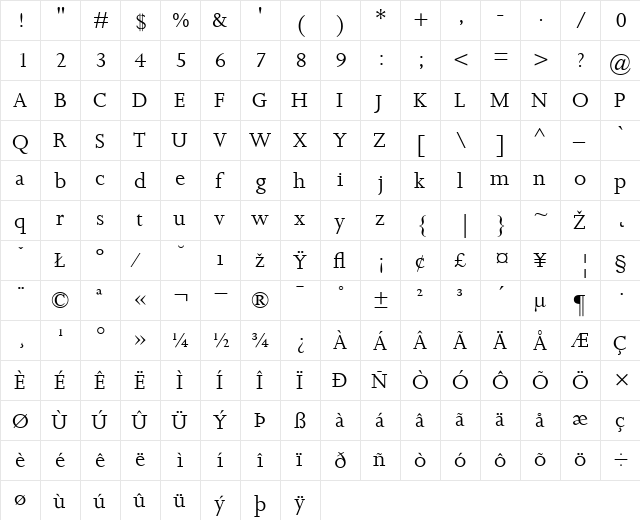
Joanna Regular
Design Context for Joanna Typeface
Joanna takes a measured approach to typography — its balanced proportions and neutral character make it a reliable workhorse for both digital and print work.